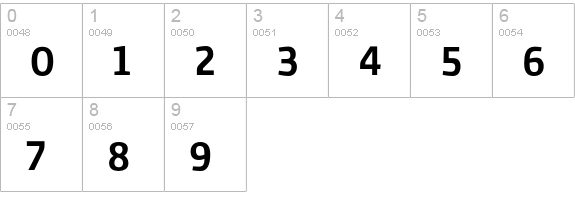
Vinkel Medium Font Details
Vinkel Medium is a balanced, medium-weight variant in the Vinkel typeface family \xE2\x80\x94 well suited to sub-headlines, navigation, and balanced editorial work.
Vinkel Medium is a sleek and versatile font that strikes the perfect balance between legibility and style. With its modern and clean aesthetic, this font exudes a sense of sophistication and professionalism. Vinkel Medium is ideal for a wide range of design projects, from branding to editorial layouts. What sets Vinkel Medium apart is not only its contemporary appeal but also its accessibility. This font is available for free download at FontsMarket.com, making it a valuable addition to any designer's toolkit. Whether you're working on a website, poster, or logo, Vinkel Medium offers a timeless elegance that will elevate your designs to the next level. Embrace the beauty and functionality of Vinkel Medium today and see the difference it can make in your creative projects. Download this stunning font for free at FontsMarket.com and experience the power of premium design at your fingertips.